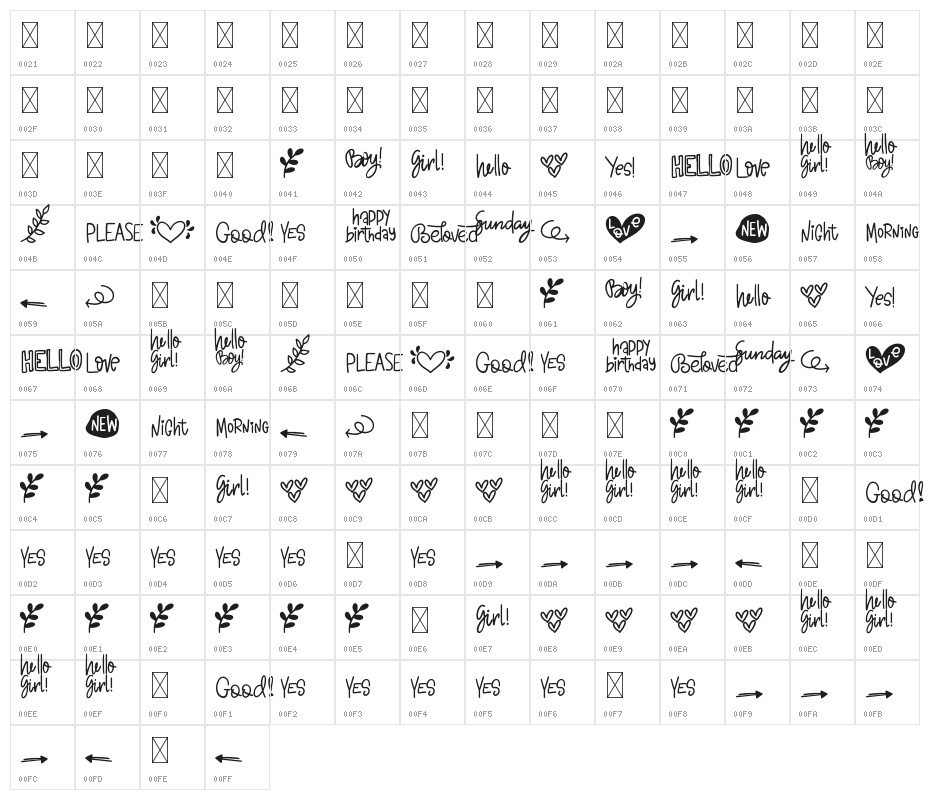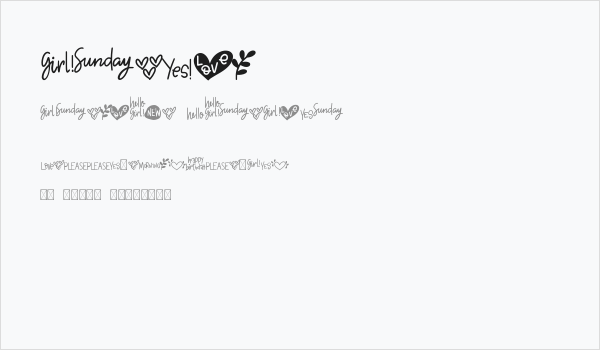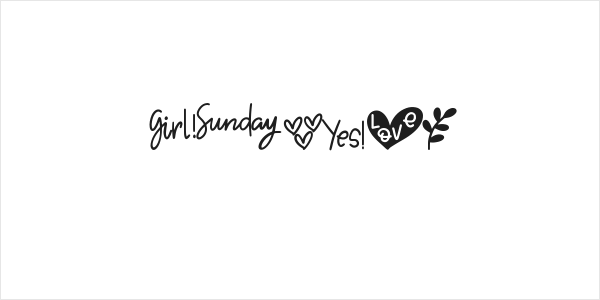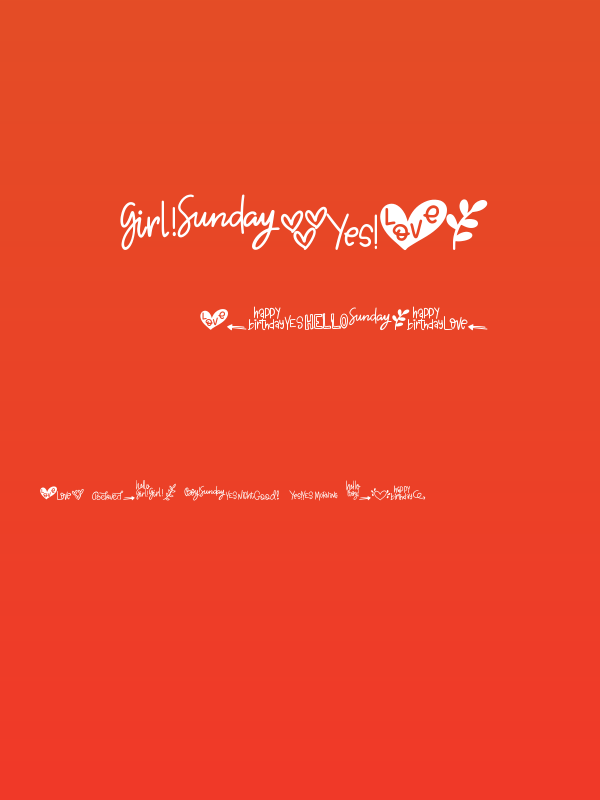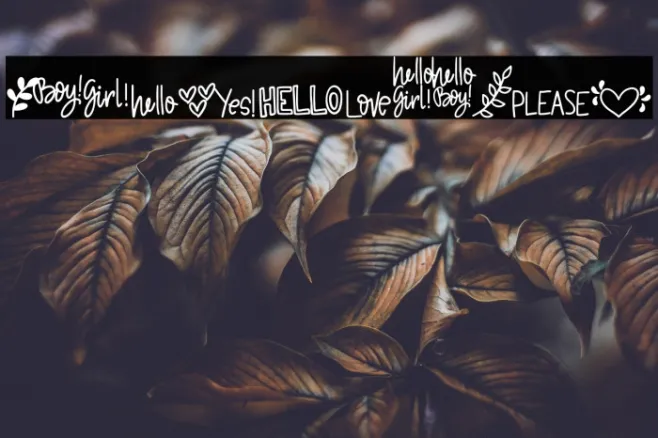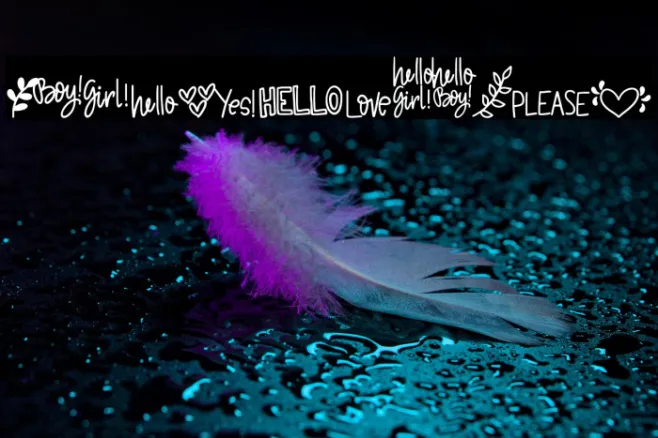
Crefta Font
Crefta Description
This playful and whimsical font features a mix of handwritten and decorative elements, creating a lively and engaging appearance. The letters are characterized by a casual, flowing script with occasional embellishments like hearts and leaves. The uppercase letters are bold and slightly irregular, adding to the font's charm. The lowercase letters maintain a consistent style, with smooth curves and a friendly demeanor. The font includes a variety of special characters, enhancing its versatility for creative projects. Overall, this font exudes a fun and approachable vibe, perfect for projects that require a touch of personality and warmth.
| Proposed Projects | Ideal for greeting cards, invitations, playful branding, and social media graphics. |